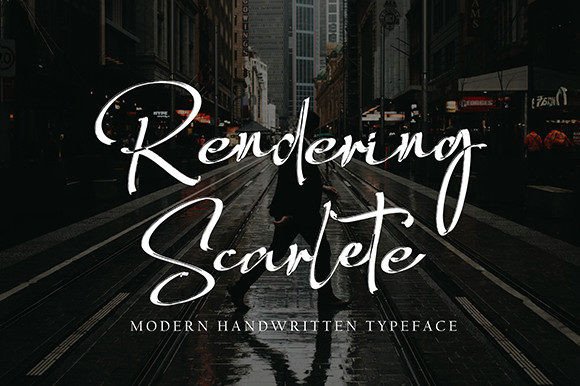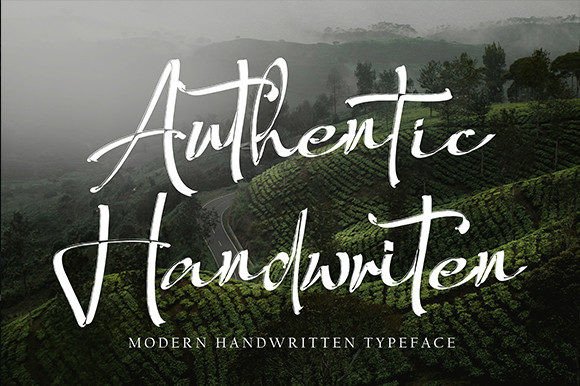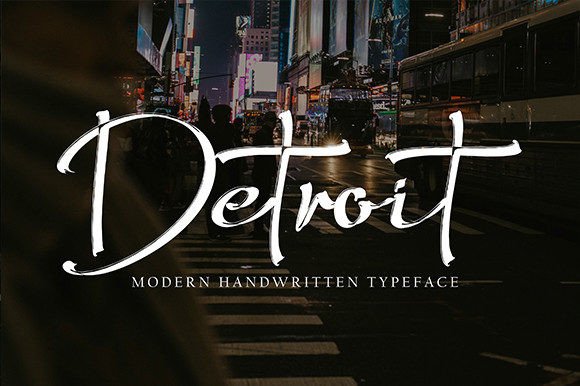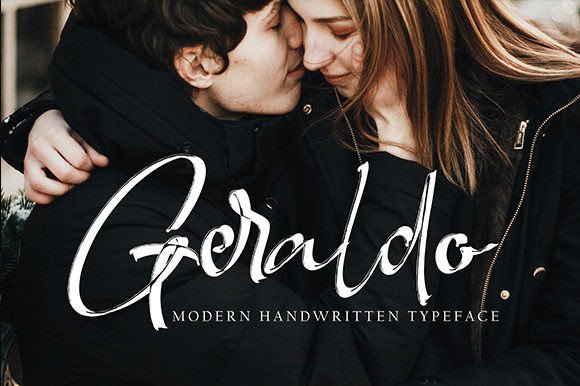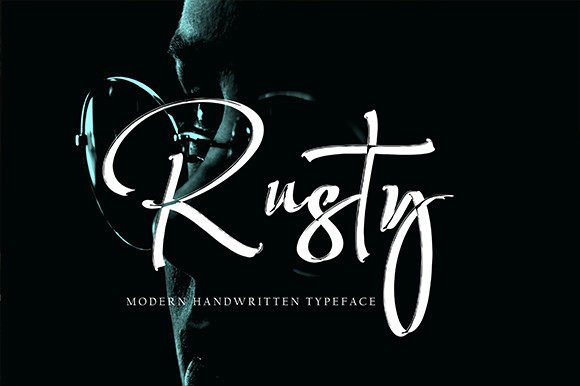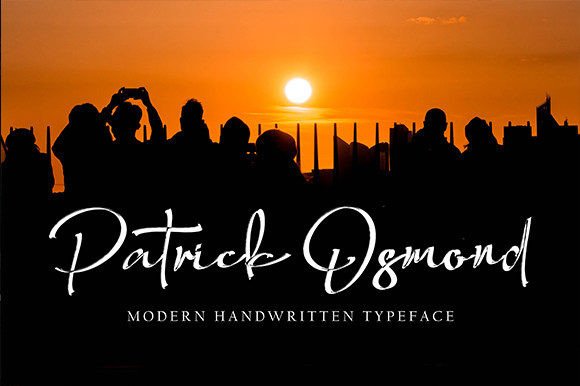
The Designer’s Delight: Fredo Shater Font
I’ll never forget the time I was working on a project for a client who needed a unique and modern handwritten font for their branding. I spent hours scouring the internet for the perfect one, but nothing seemed quite right. That was until I stumbled upon Fredo Shater Font. It was love at first sight! 💕
Fredo Shater is a beautiful and modern handwritten font perfect for quotes, logos, blog headers, posters, branding, letters, invitations, stationery, and many more. Add it to each of your creative ideas, and notice how it makes them stand out.
- ✨ Unique and modern handwritten style that’s perfect for creative projects
- ✅ Extensive character set, including OpenType features and glyphs
- ✅ Perfect for both digital and print projects
While Fredo Shater is an amazing font, there are a few things to keep in mind:
- ⚠️ Some users may find the font a bit too ornate for certain projects
- 🤔 May not be the best choice for body text, as it’s more suited for headlines and titles
Fredo Shater was designed with the creative individual in mind. The font’s unique style and extensive character set make it perfect for a wide range of projects. Whether you’re a designer, crafter, or hobbyist, Fredo Shater is sure to inspire your next creative project.
| Author | Pineungtype & Missinklab |
A: Fredo Shater Font is a modern handwritten font perfect for creative projects.